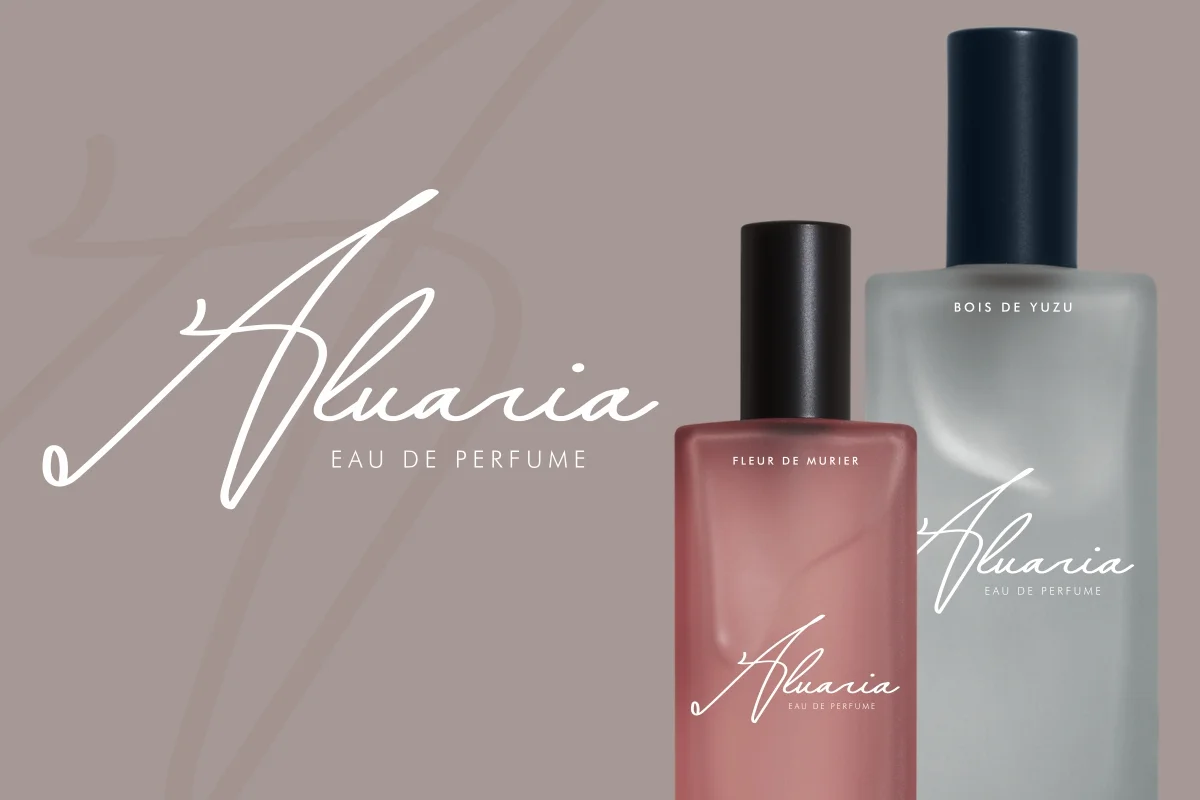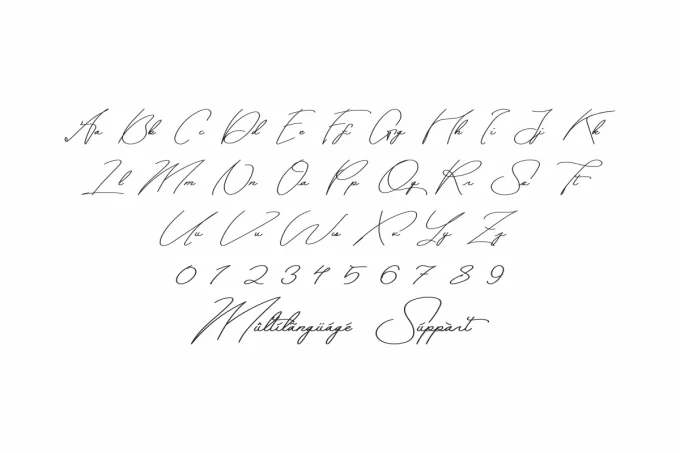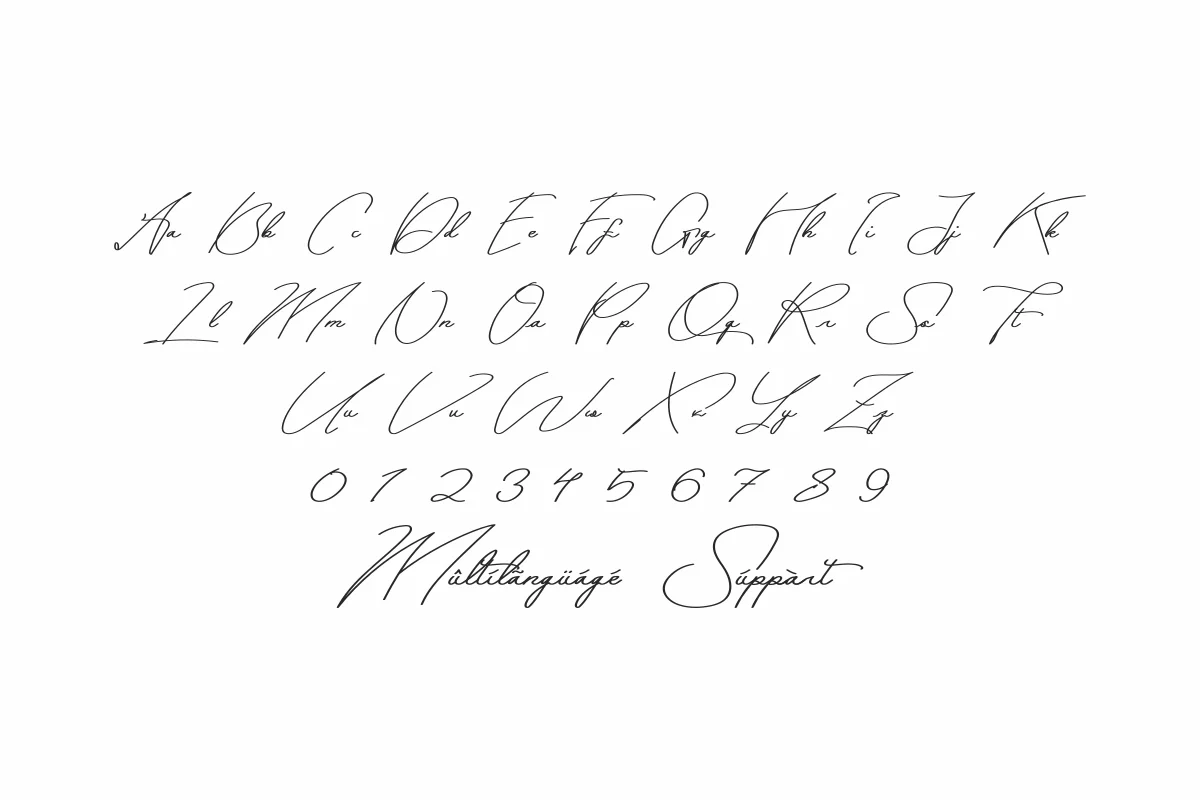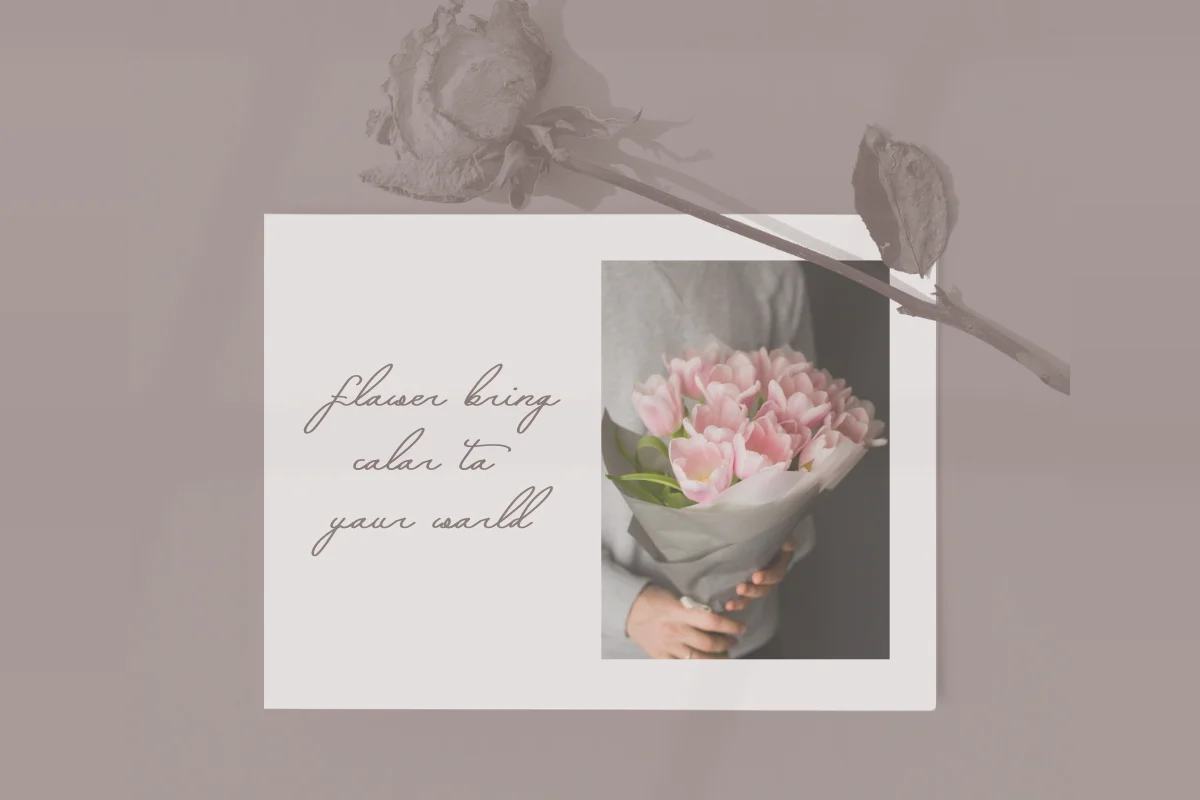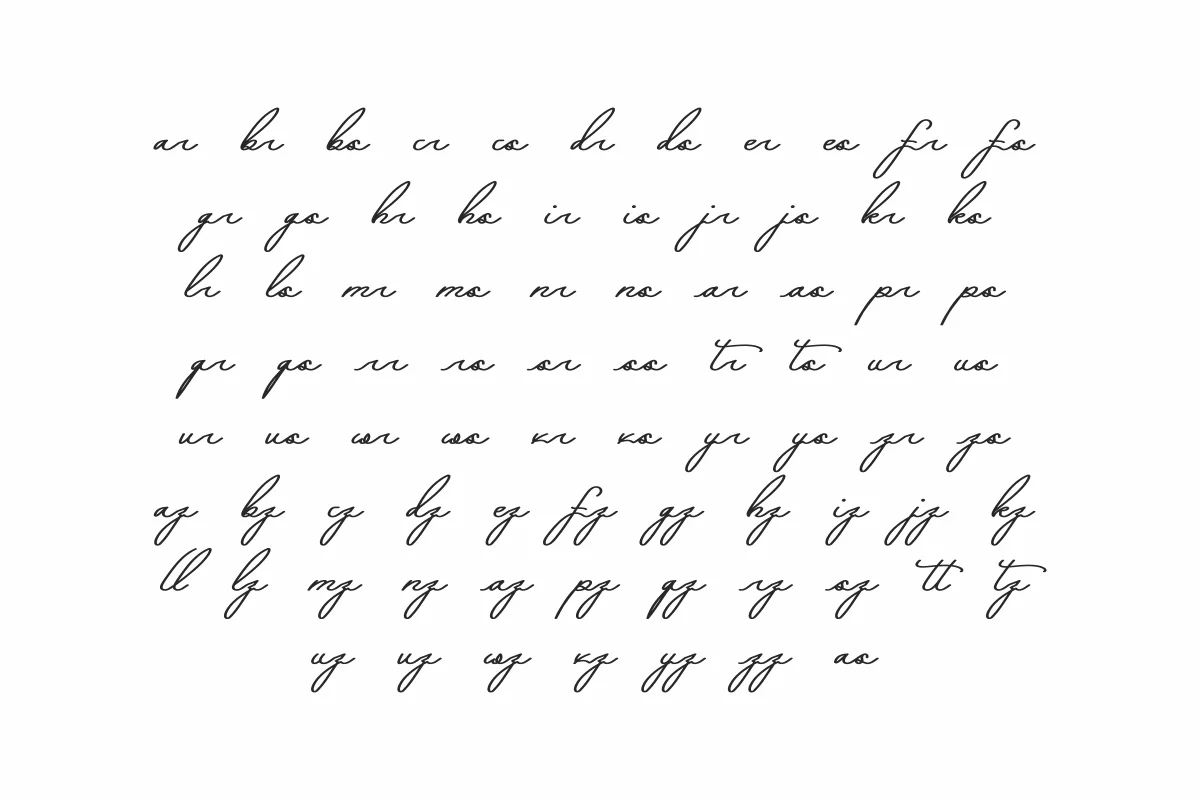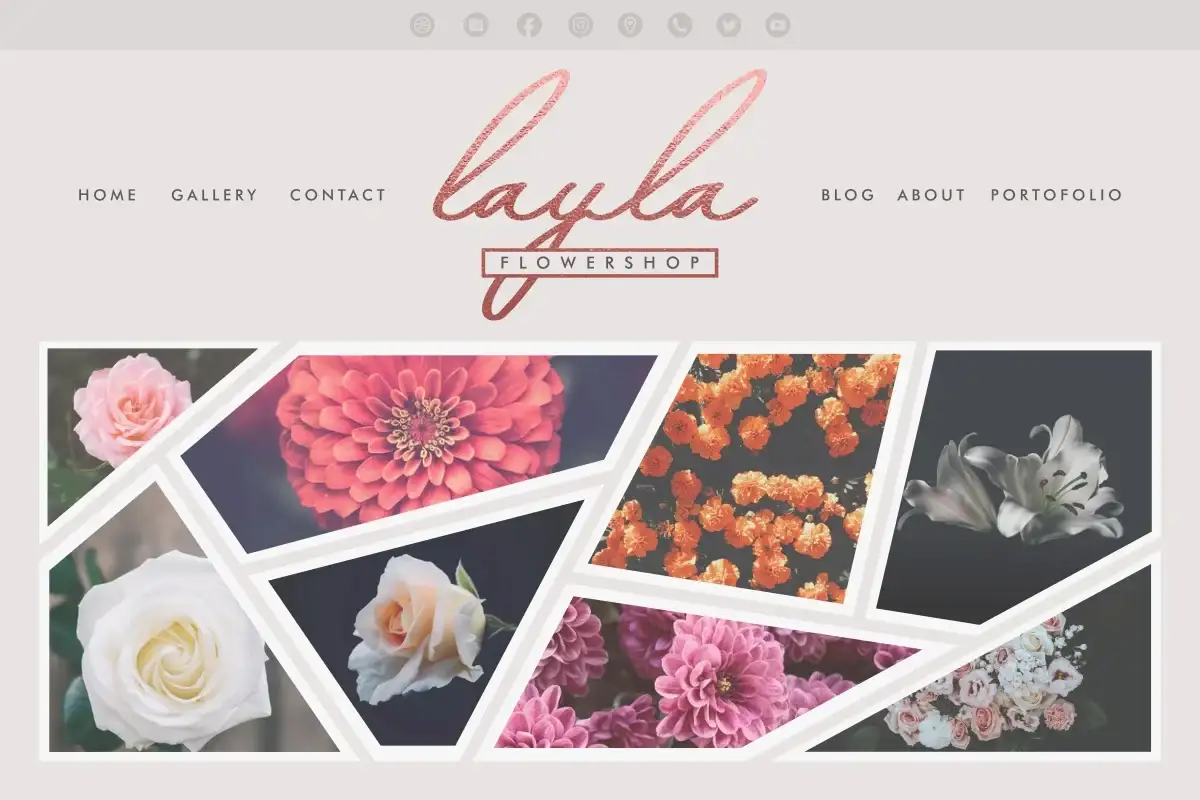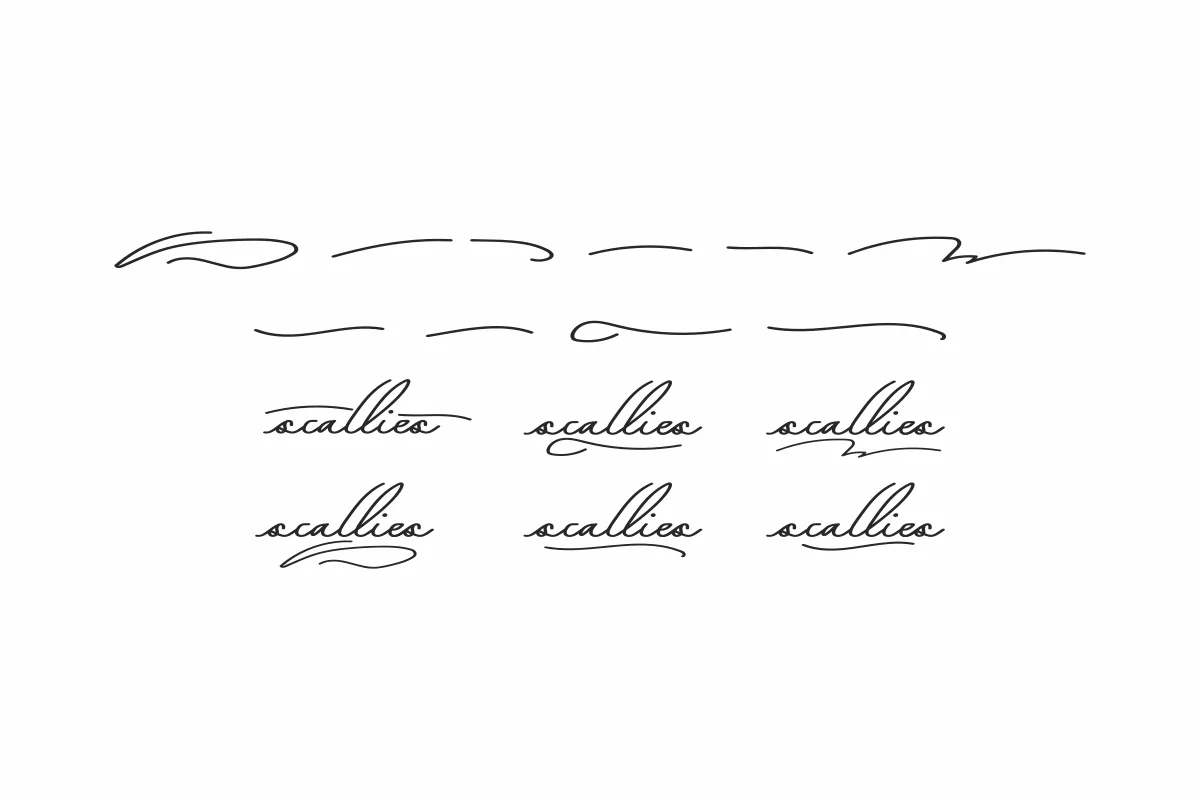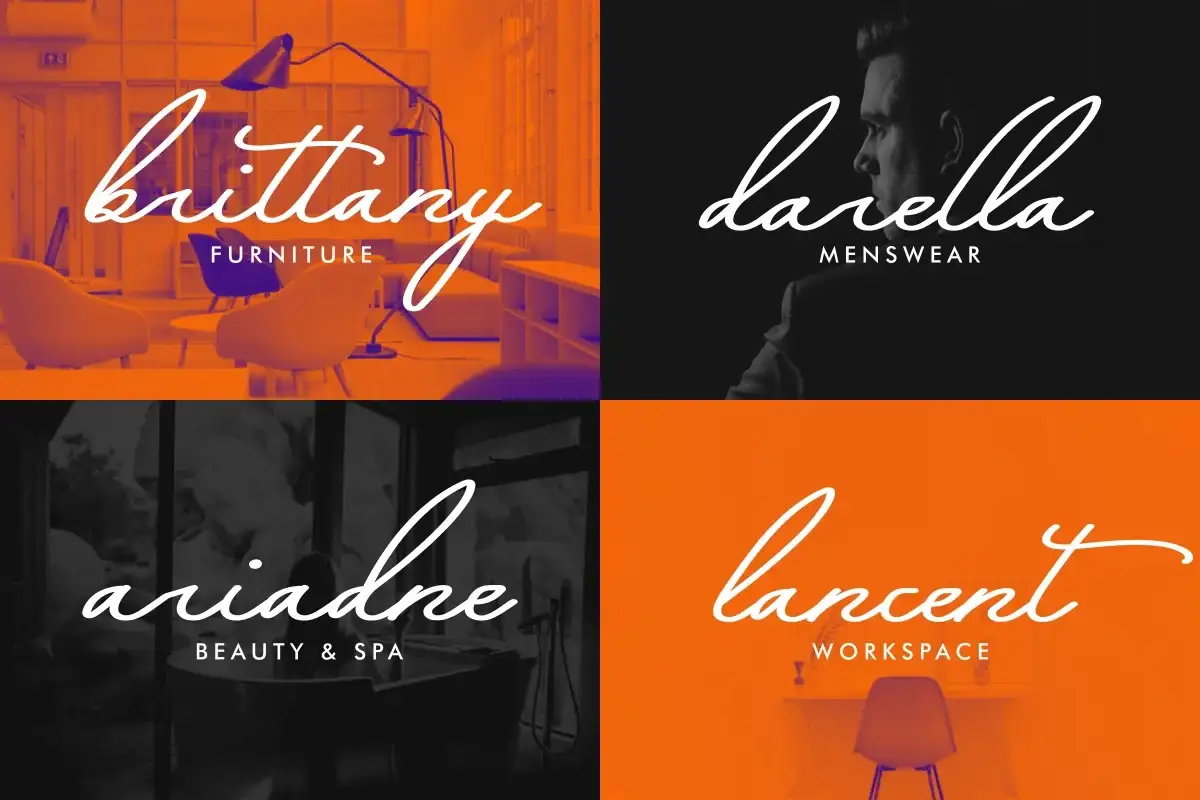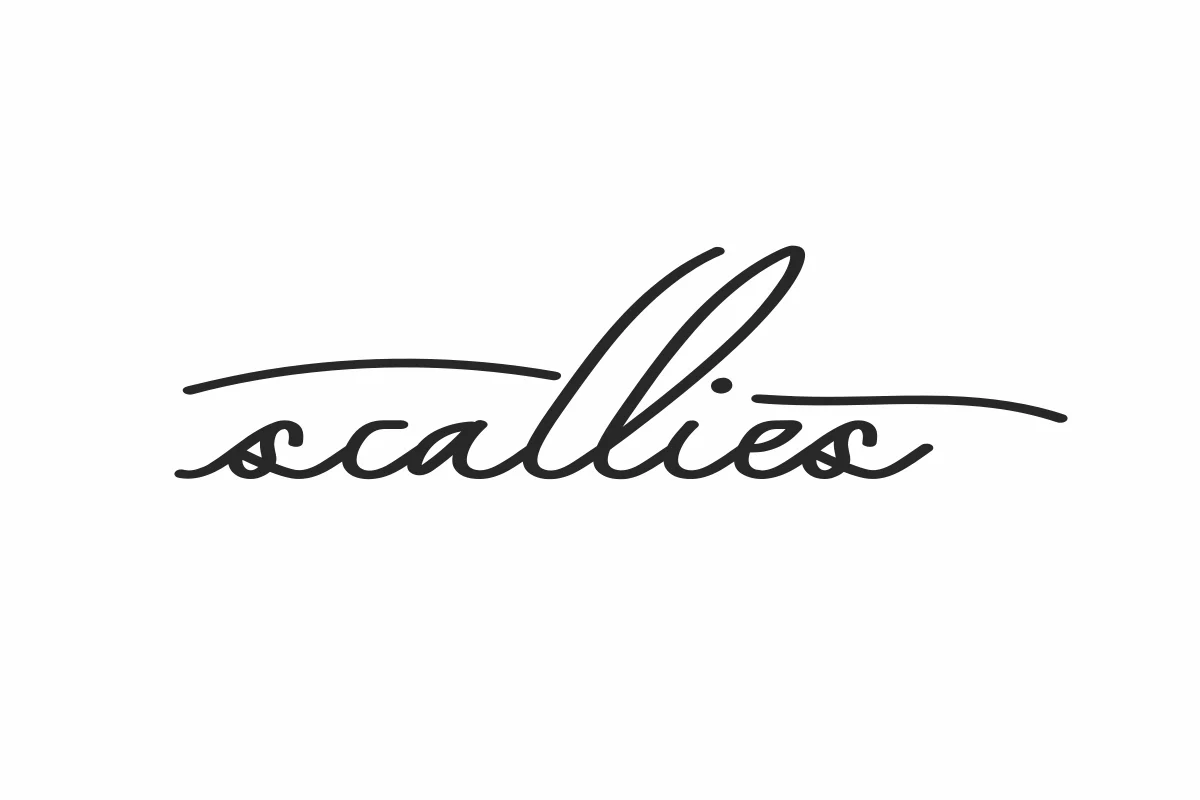
Scallies Font is an exclusive pen signature handwriting font, Made with love in Indonesia. Great for watermark, professional, photography, events, wedding, logotype etc.
The theme style of the Scallies Font is elegant, luxury, glamour, professional, vintage, stylish, sophisticated and classic light brush style. The font will be match for this typeface: wedding, events, real estate, architect, law firm, florist, gardening, makeup artist, travel, hotel, musician etc